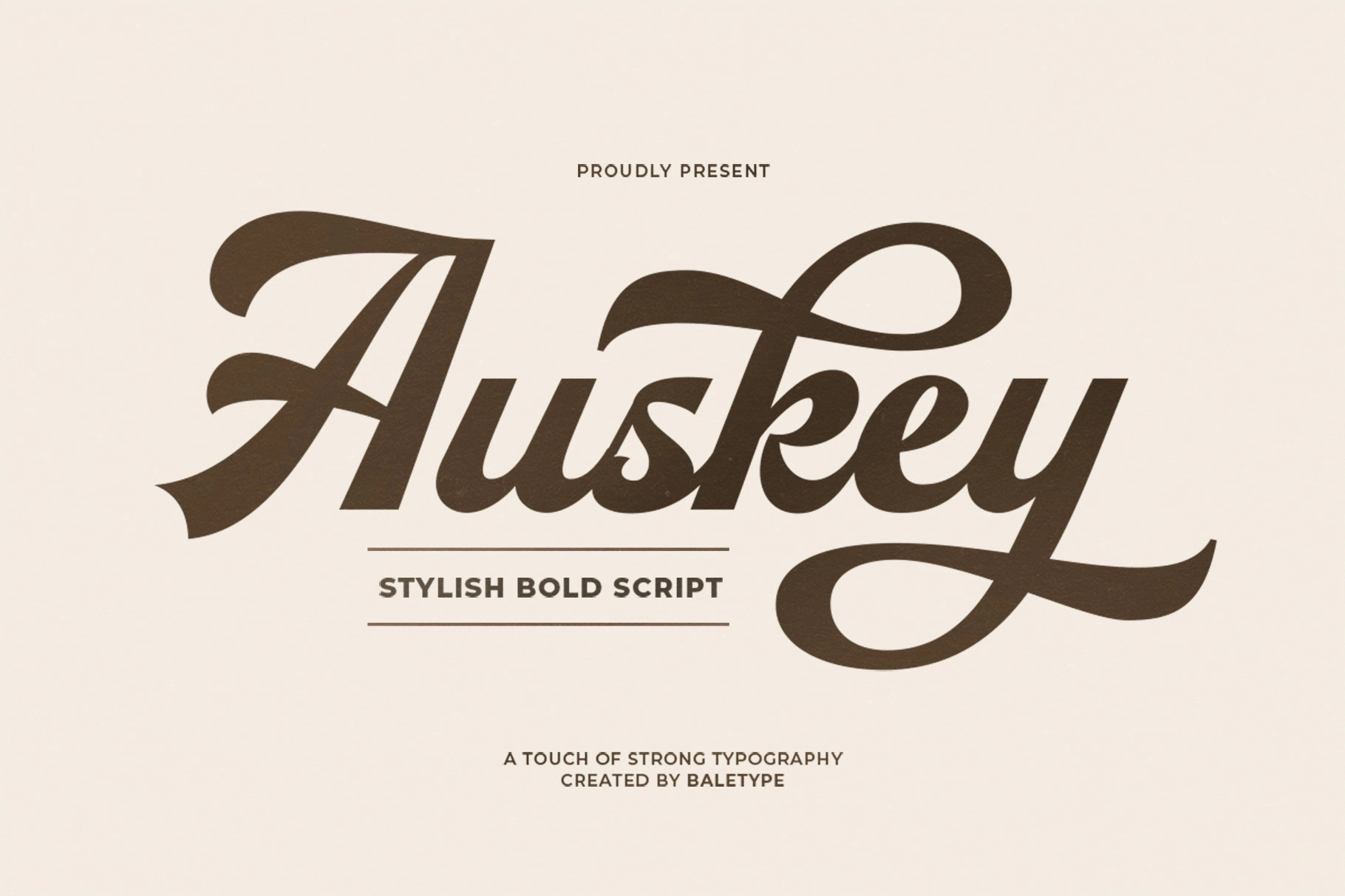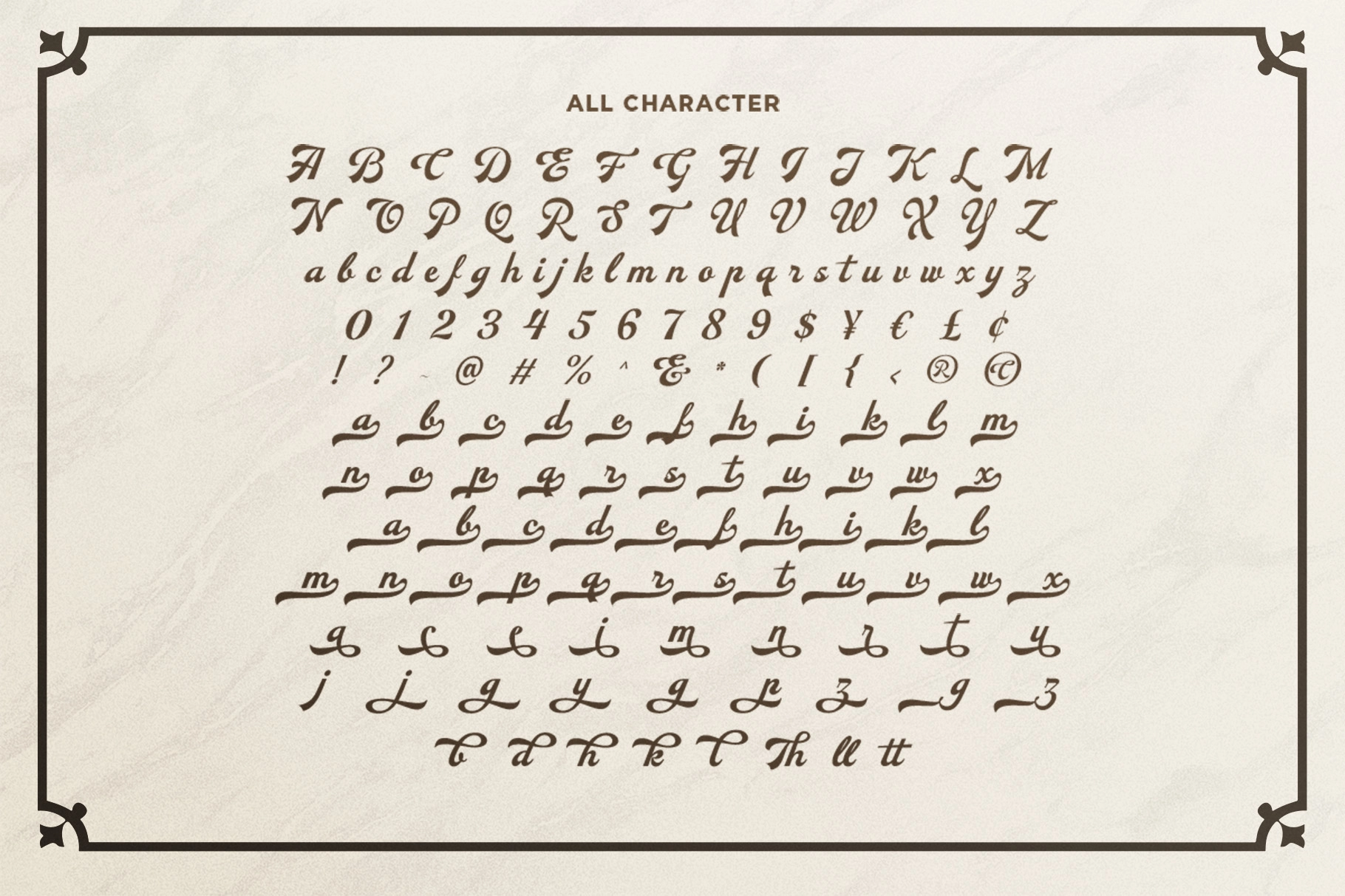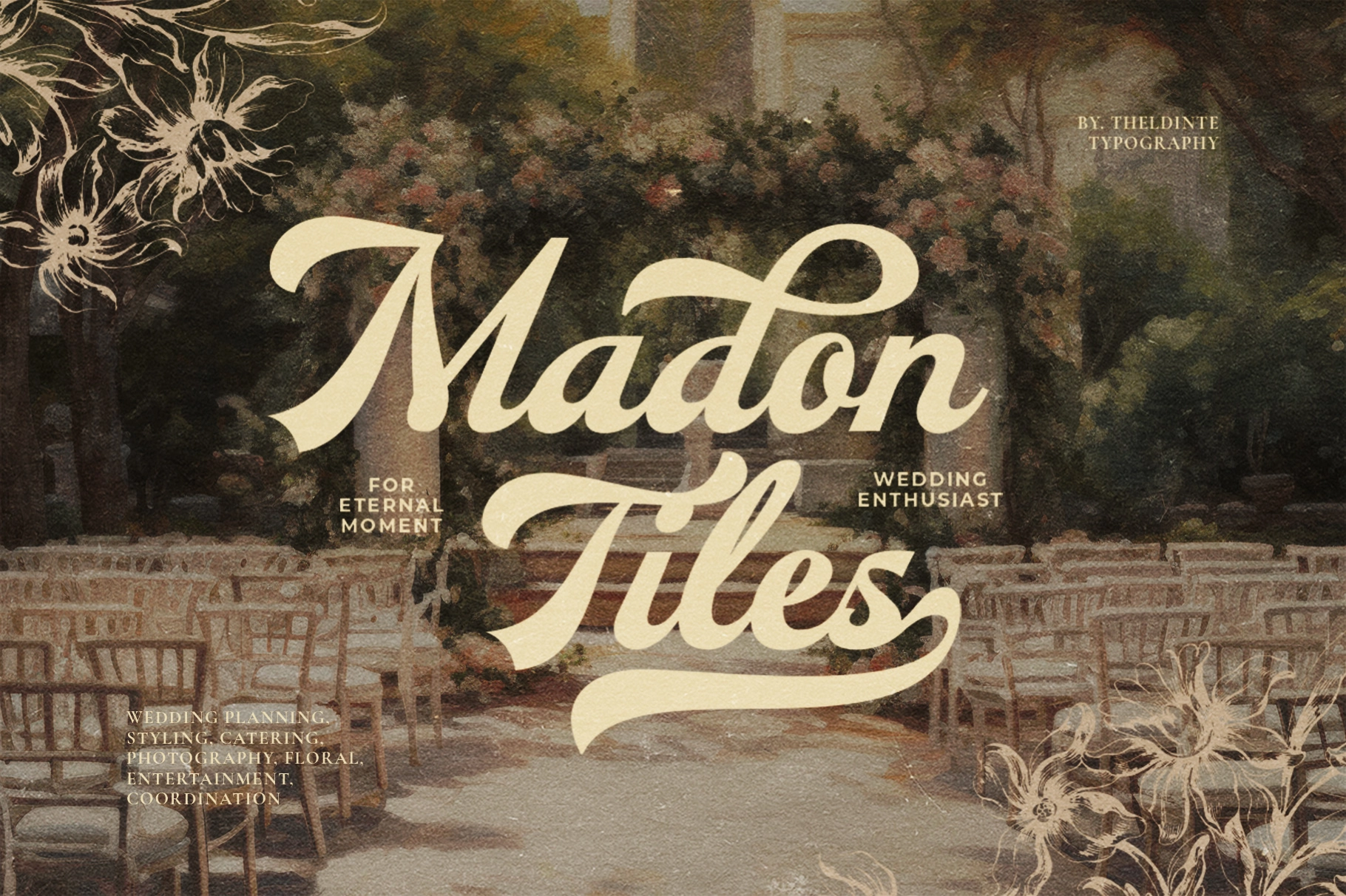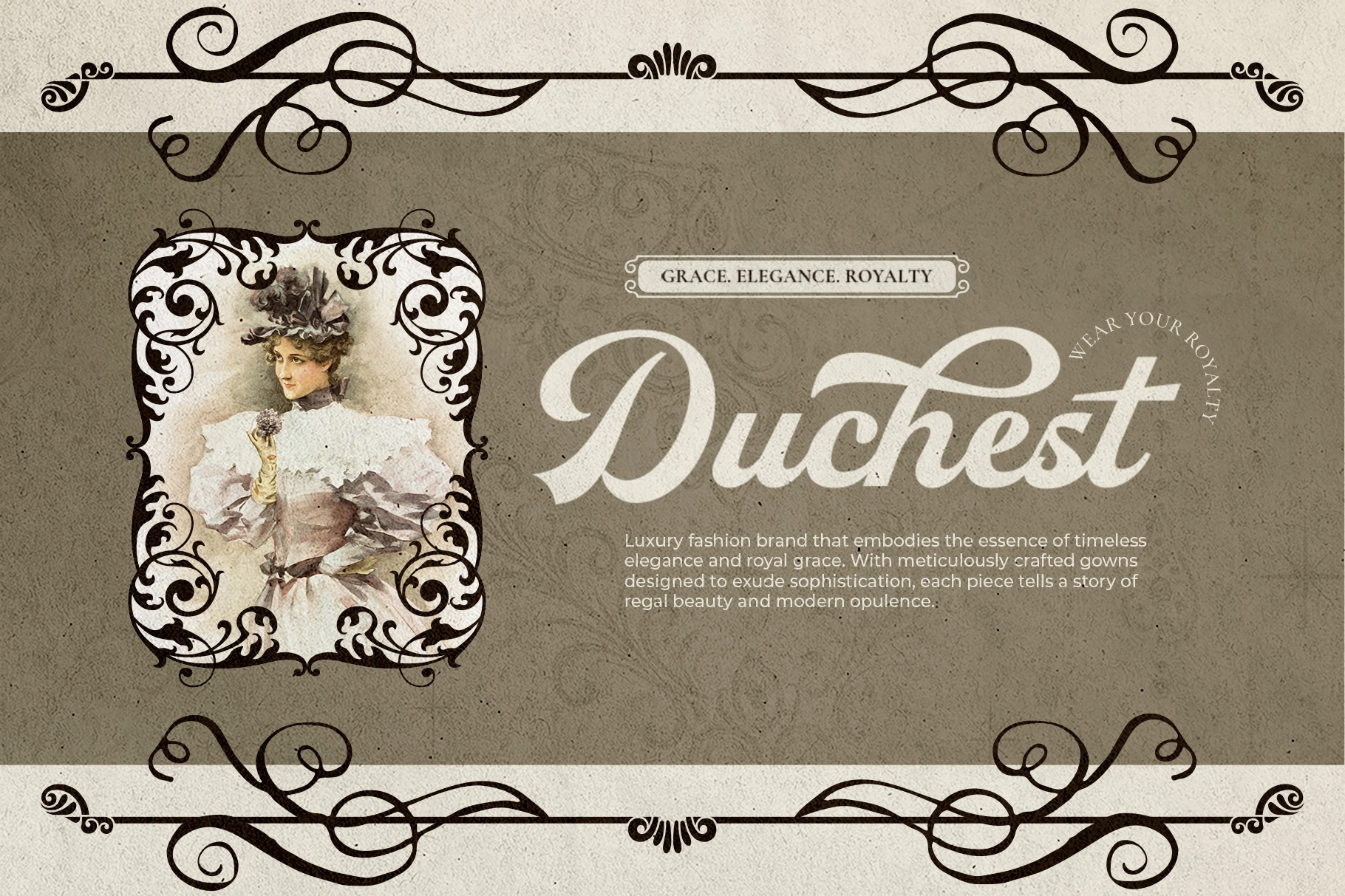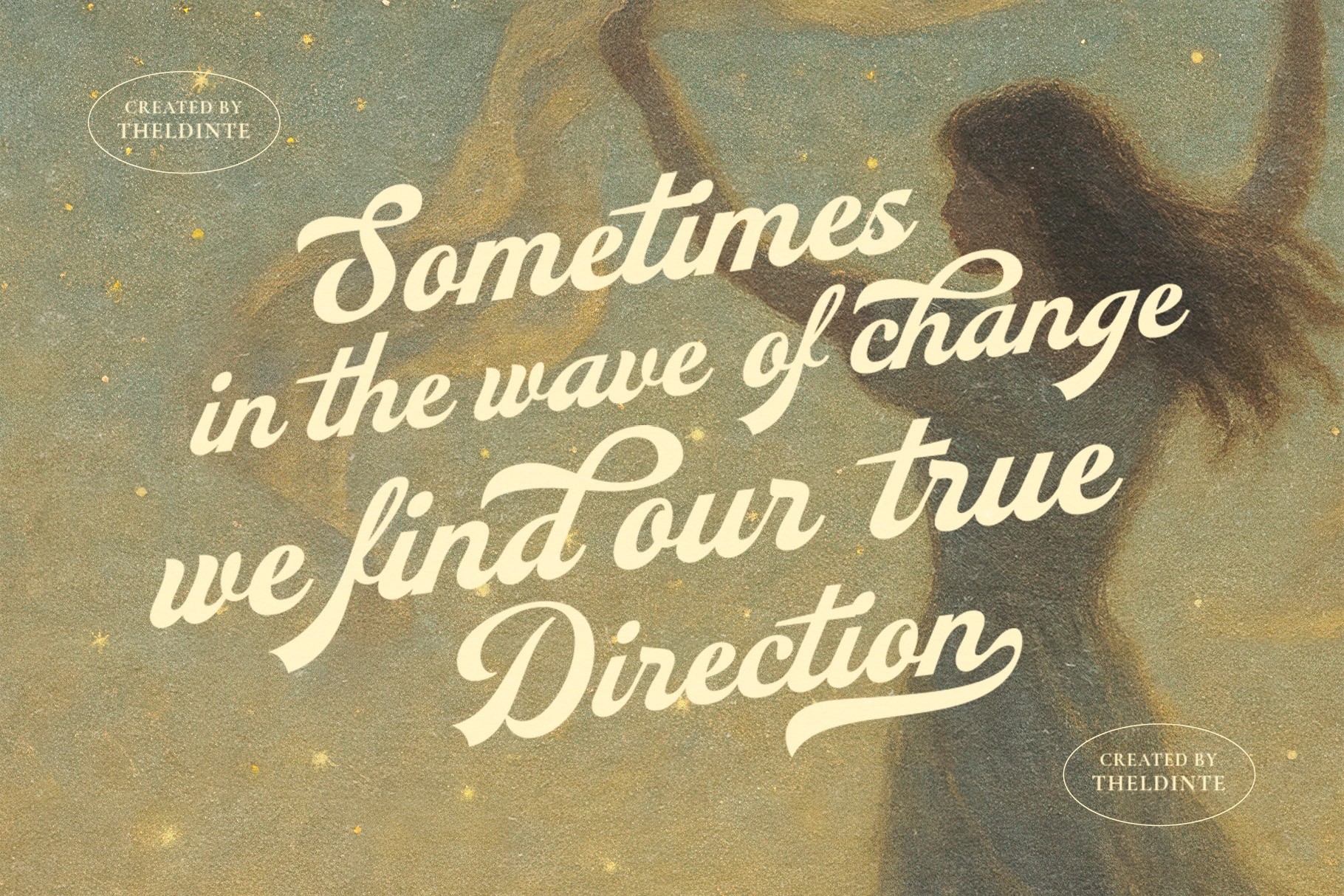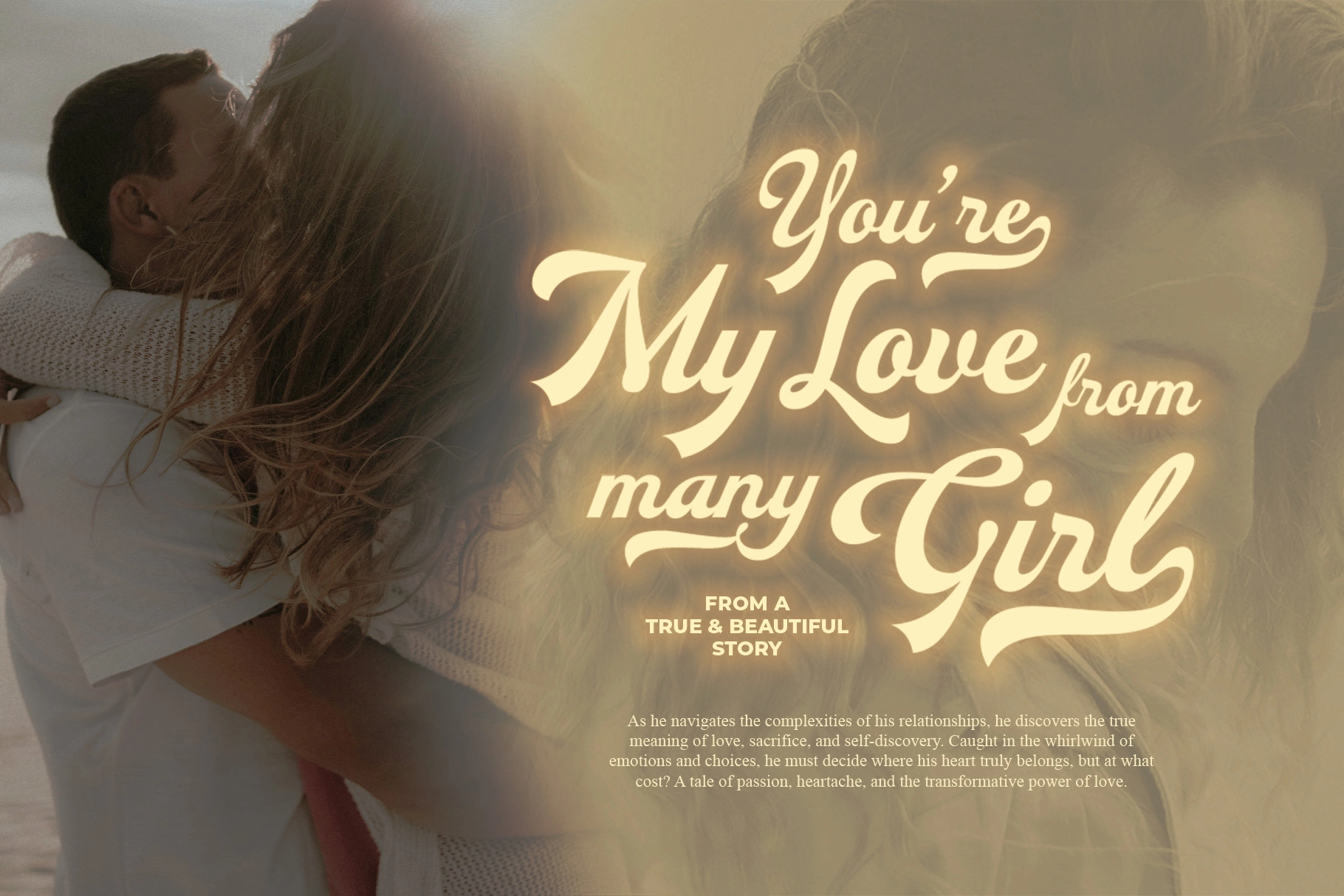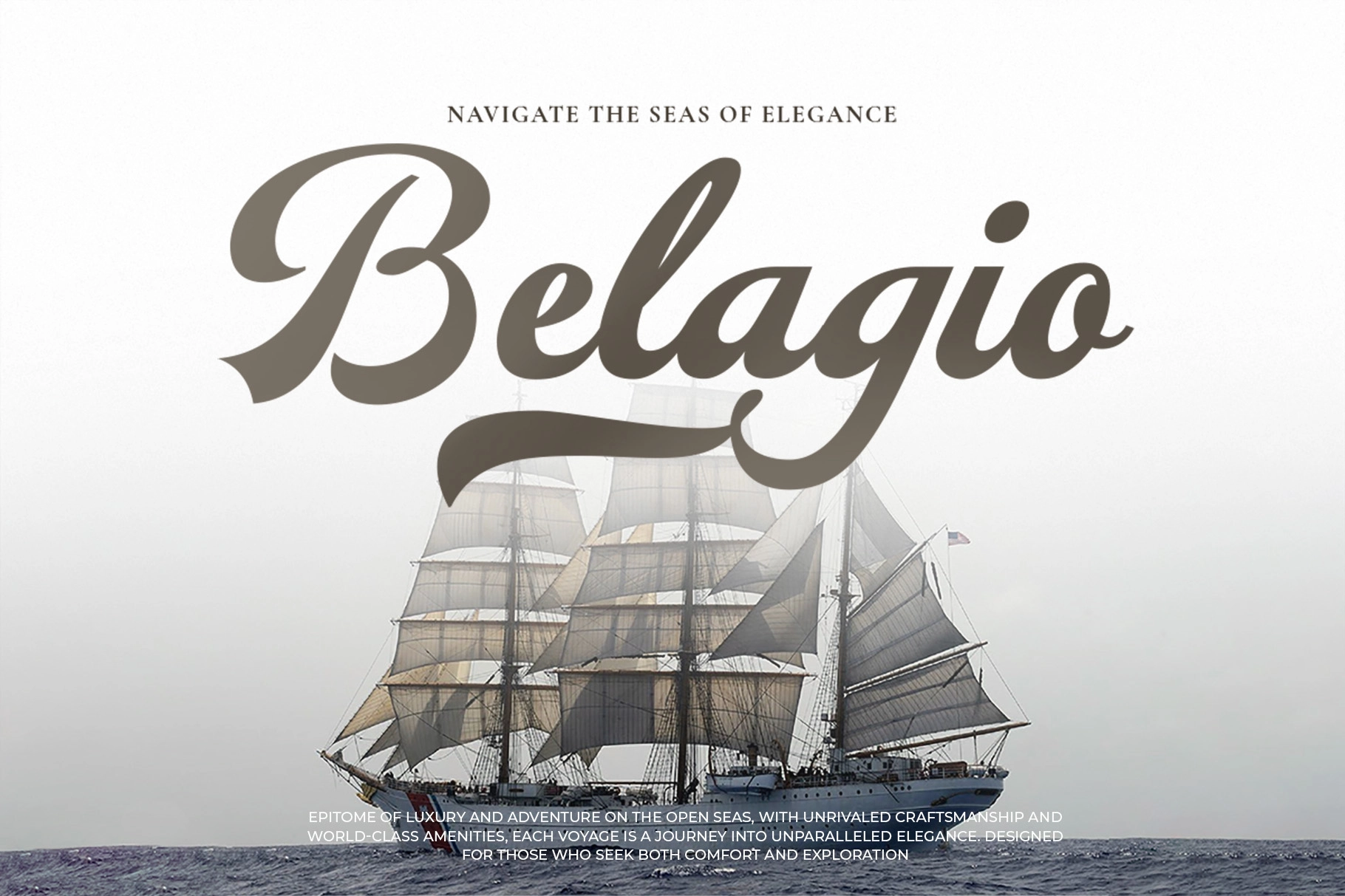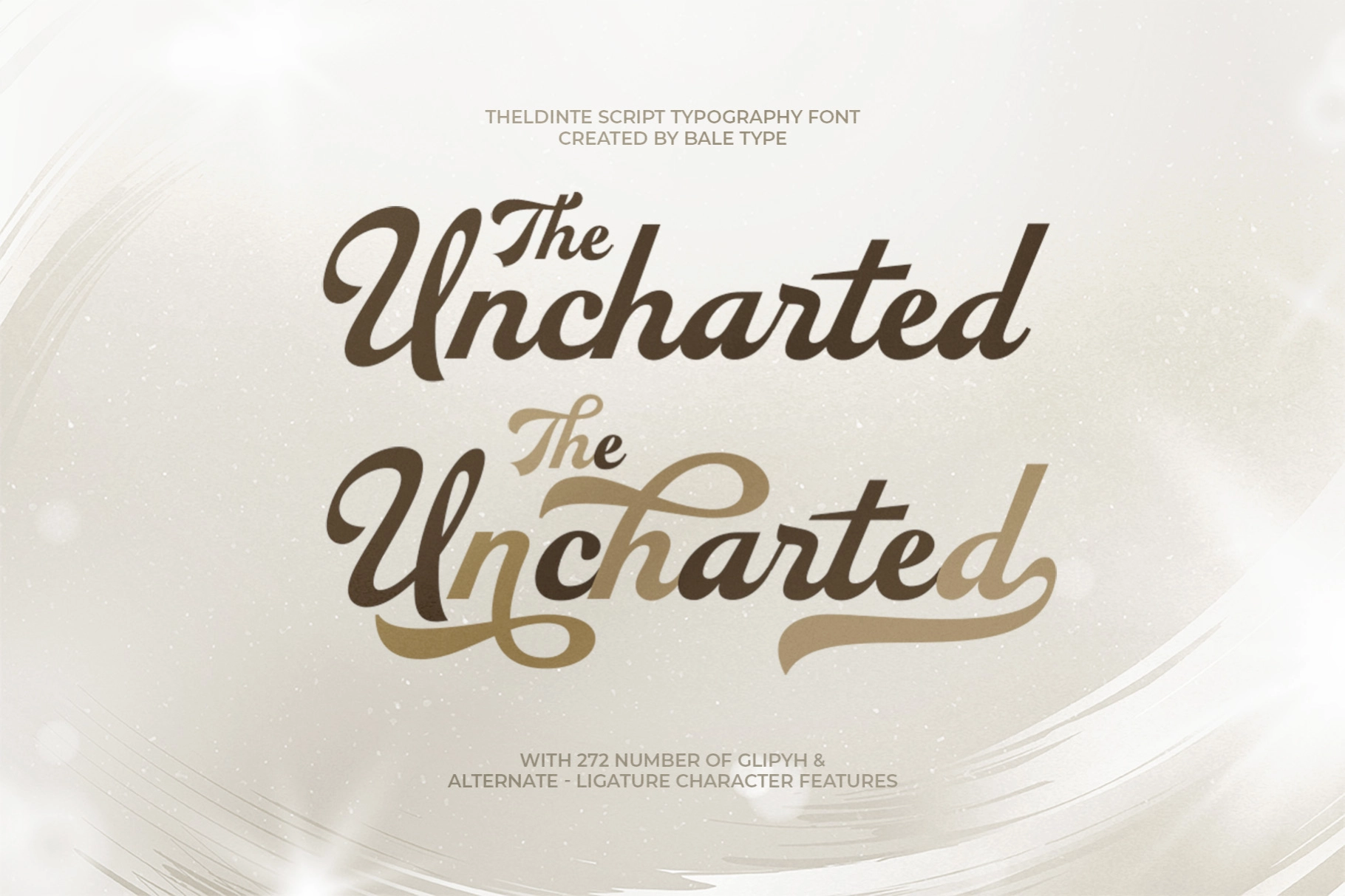
Auskey - Bold Script Font
Auskey
Auskey, Bold Script Font recalls mid-century sign painting and classic Americana lettering, with broad swashes, rounded joins, and a polished rhythm that feels at home in vintage storefronts, old cinema titles, and romantic print ephemera. It suits logotypes, branding suites, editorial headlines, packaging, quote graphics, wedding stationery, and social media visuals, especially where a bold script can add warmth, charm, and a confident decorative note.